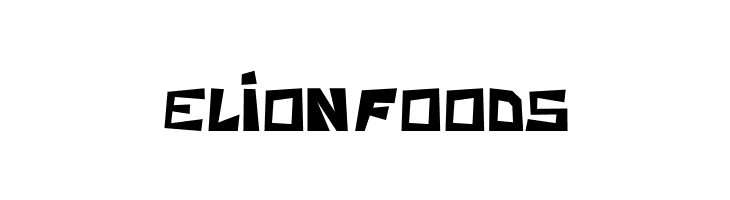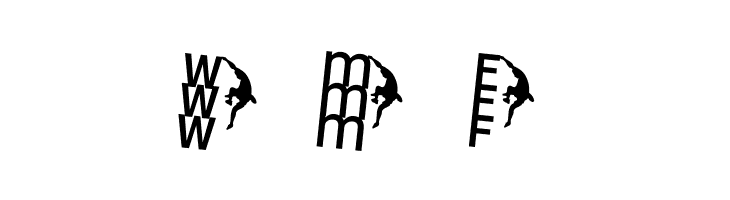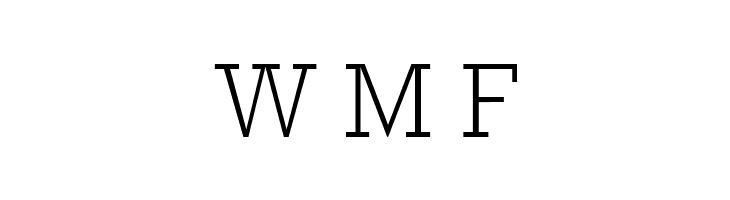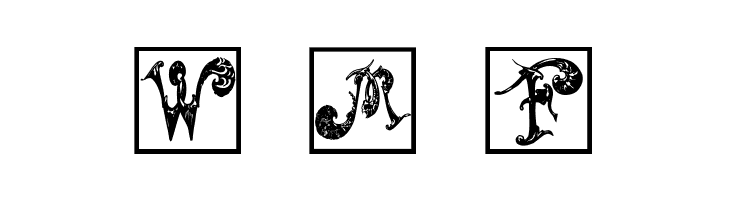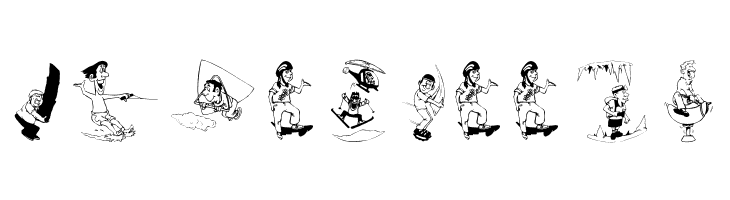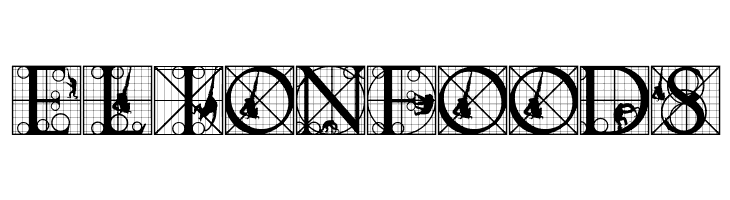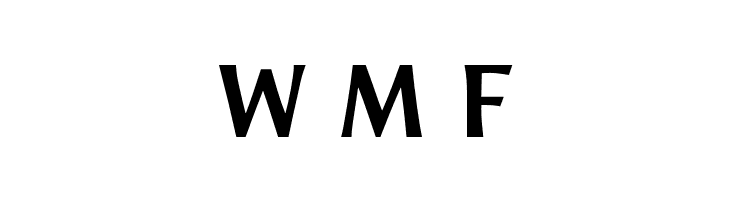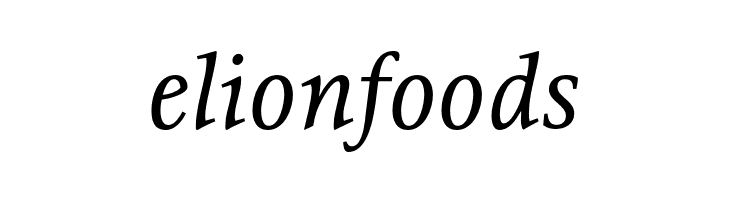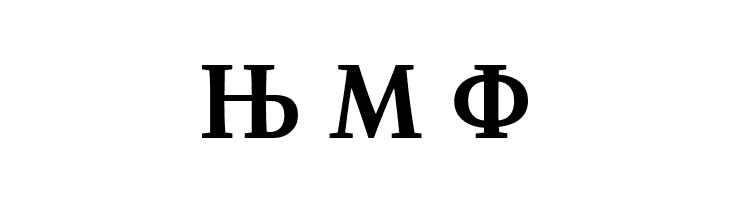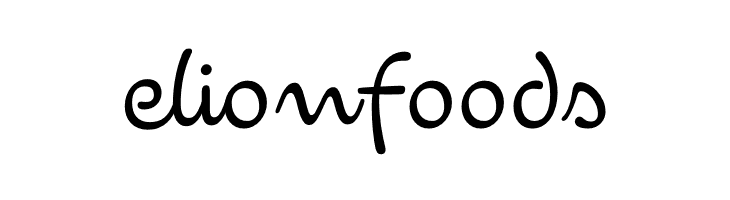
An elegant serif italic font with moderate contrast and a classic style.
A bold, classic serif font with strong strokes and elegant serifs.
A bold, italic serif font with a classic and elegant style.
An elegant italic font with smooth curves and moderate stroke contrast.
A classic serif font with strong readability and a cohesive design, suitable for formal and editorial use.
A bold, classic serif font with strong, pronounced characters.
A bold, italicized serif font with a classic and elegant style.
Elegant serif font with italic slant and clear Cyrillic characters.
A modern, clean sans-serif font with excellent readability and versatility.
A bold, italic sans-serif font with a modern and dynamic style.
A modern, italic sans-serif font with a sleek and dynamic style.
A bold, angular font with a retro gaming aesthetic.
A bold, geometric font with a retro aesthetic and playful design.
A bold, dynamic font with a climber motif integrated into each character.
A playful, handwritten font with bold, dynamic strokes and an informal style.
A whimsical, decorative font with playful curls and swirls.
A whimsical, decorative font with spiral embellishments and high contrast.
A bold, geometric Art Deco font with intricate detailing and strong vertical lines.
A playful handwritten font with smooth, rounded strokes and a casual style.
Cartoonish, illustrated characters form each letter and symbol.
Cartoonish 1920s-themed pictorial font with illustrated characters and objects.
A playful, space-themed font with unique character embellishments.
A decorative symbol and illustration set with bold, eclectic designs.
Cartoonish, rock-themed decorative font with illustrated characters.
A clean and elegant serif font with thin strokes and subtle curves.
A classic serif font with modern elegance and balanced proportions.
A bold, condensed serif font with strong strokes and a modern yet classic appeal.
An ornate and decorative font with intricate Rococo-inspired flourishes.
An intricate and decorative uppercase font with geometric and ornamental details.
An artistic and decorative font with intricate geometric patterns and flourishes.
A decorative and artistic font with intricate patterns and whimsical illustrations.